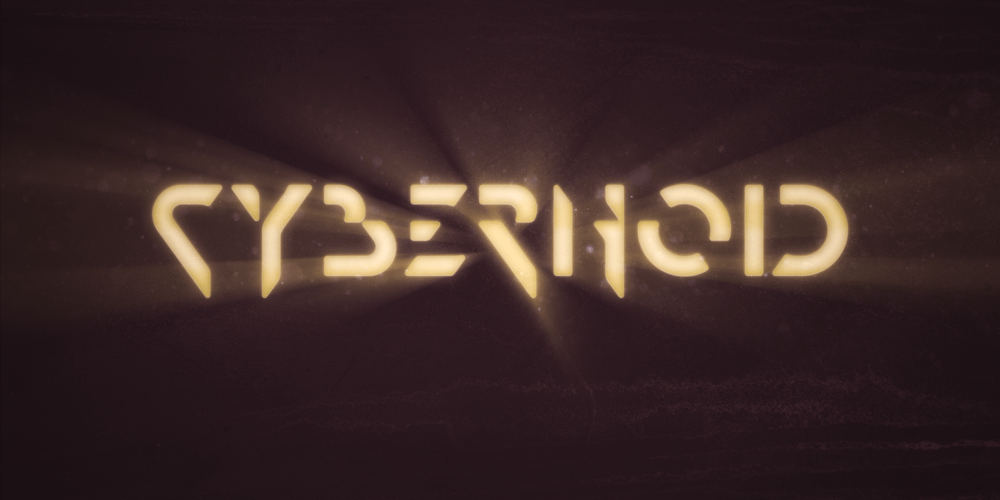
Cybernoid Font Family was designed by Leonardo Di Lena and published by Flanker. Cybernoid contains 2 styles and family package options. Designing the Cybernoid series was a difficult challenge: making a sci-fi and stencil character, as minimal as possible, which winked at fantasy, exotic and gothic, and which had only one inclination (54° with respect to the line horizontal).Venera is indeed a minimal font, suitable for large headlines, but it also has lowercase and all the glyphs for the main languages in Latin characters.